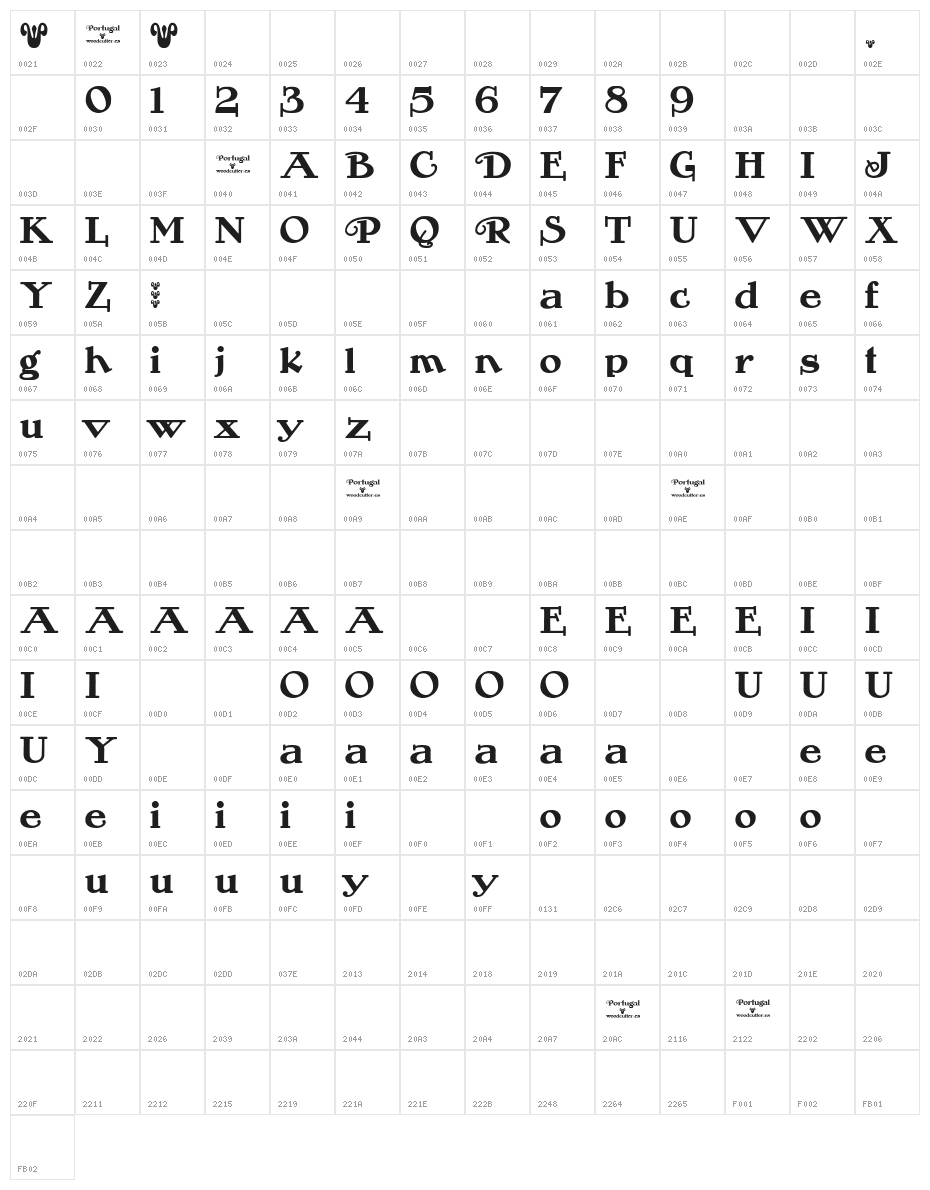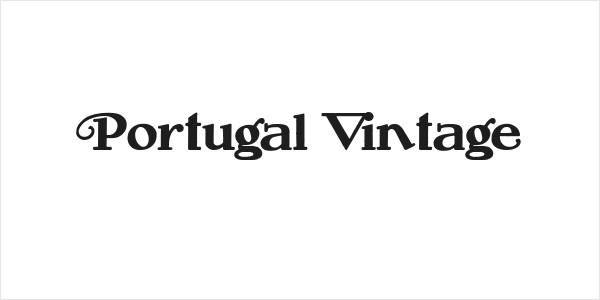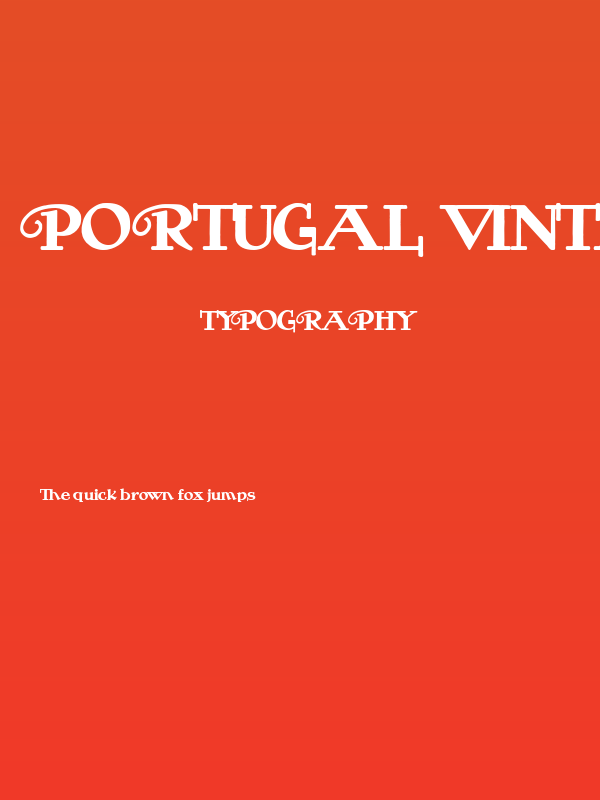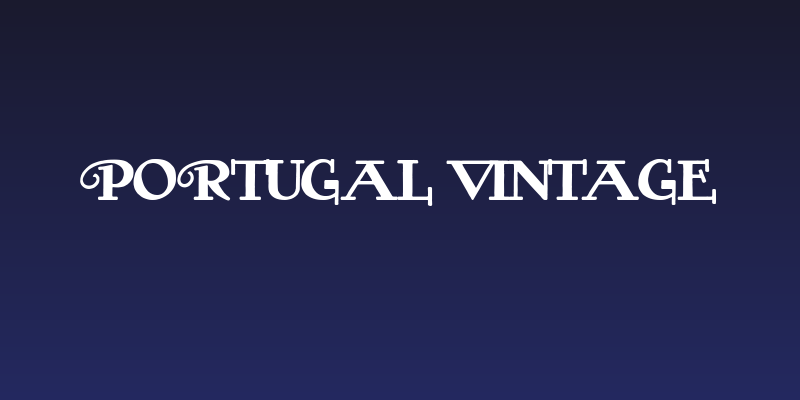
Portugal Vintage Font
Portugal Vintage Description
This font features a distinctive vintage style with ornate and decorative elements. The uppercase letters are characterized by bold strokes and intricate serifs, giving them a classic and elegant appearance. The lowercase letters maintain a similar aesthetic, with some unique flourishes that add to the overall decorative feel. The numbers are bold and consistent with the style of the letters, featuring similar embellishments. The special characters are designed to match the ornate theme, making this font suitable for projects that require a touch of sophistication and historical charm.
| Use Case | Headlines, Logos, Decorative text |
| Proposed Projects | Ideal for vintage-themed designs, posters, invitations, and branding that require a classic and sophisticated look. |